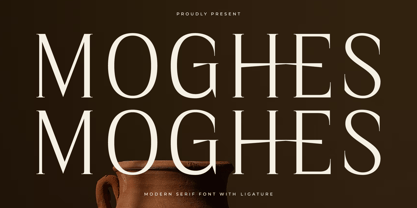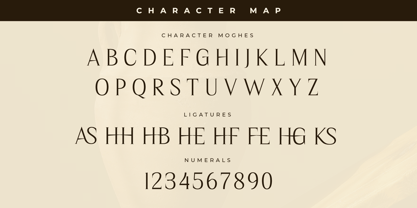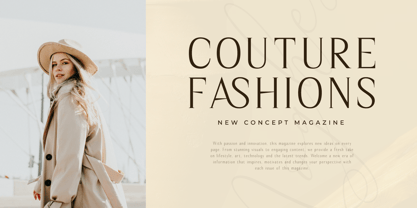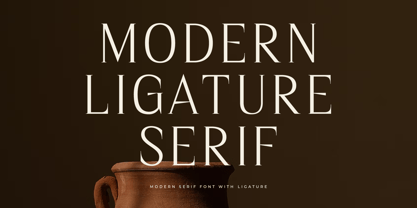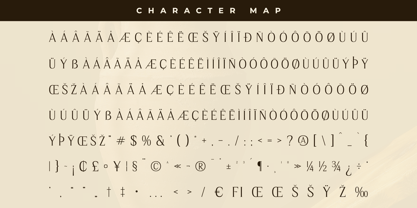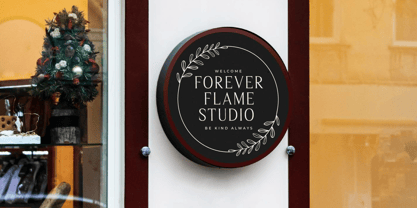
Moghes
par Letterena Studios
La famille de polices Moghes a été conçue par Heru Utama Putra et publiée par Letterena Studios. Moghes contient 2 styles et options de package familial.
Proudly present Moghes Typeface , created by Storytype,
A serif modern and classic typeface that has its own unique style & modern look.
This typeface is perfect for an elegant & luxurious logo, book or movie title design, fashion brand, magazine, clothes, lettering, quotes, and so much more.
Concepteurs: Heru Utama Putra
Éditeur: Letterena Studios
Fonderie: Letterena Studios